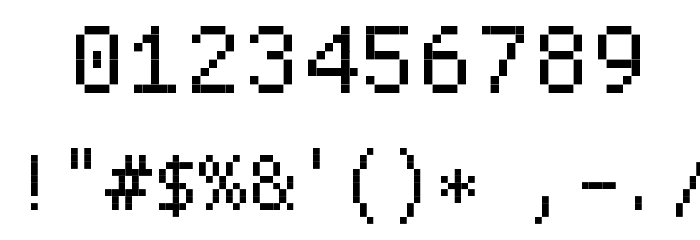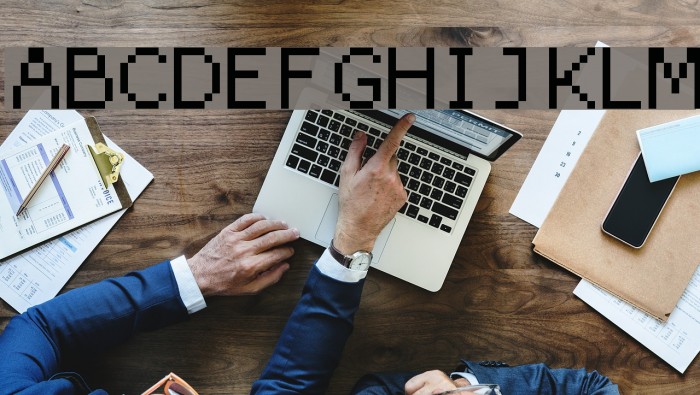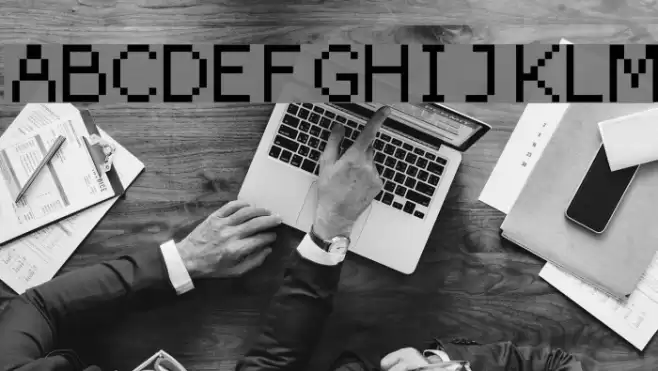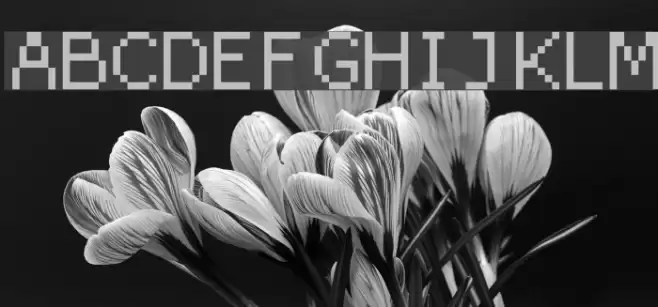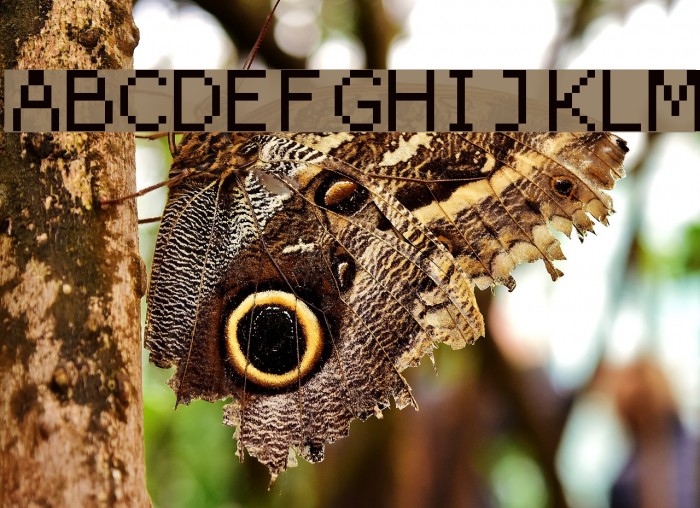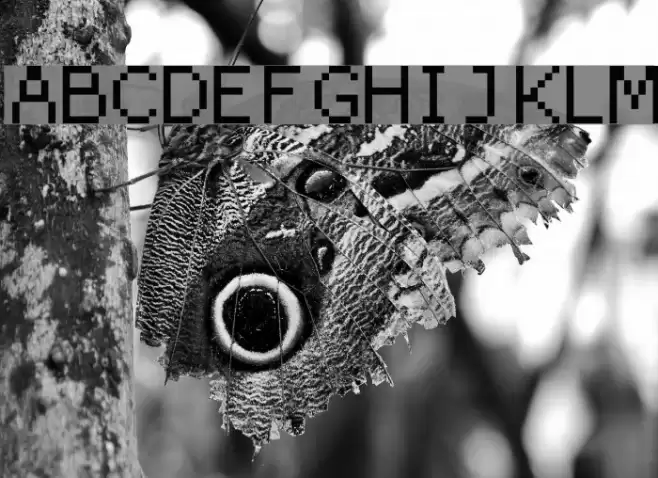
ProggyCleanTT Font
ProggyCleanTT Description
This font features a clean, monospaced design with a pixelated appearance, reminiscent of early computer screens and programming environments. Each character is uniformly spaced, providing a structured and orderly look. The uppercase and lowercase letters maintain a consistent height, enhancing readability. The numerals and special characters are clear and distinct, making them suitable for coding and technical documentation. The overall aesthetic is minimalistic, with a focus on functionality and clarity, ideal for environments where precision is key.
| Use Case | Coding, Technical documentation |
| Proposed Projects | Perfect for programming interfaces, retro-themed designs, technical manuals, and digital art projects. |